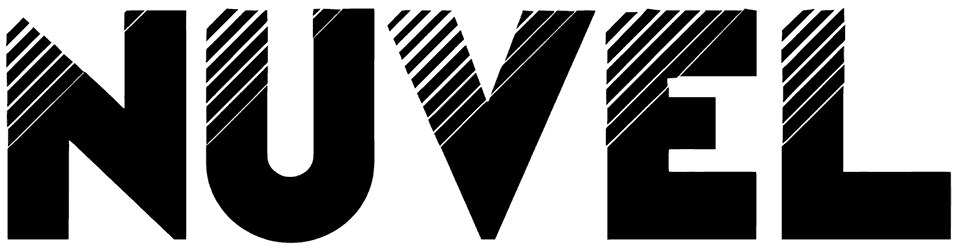
Nuvel Font
Meet Nuvel, a bulky and neat font that can harmonize with any theme. This sans serif font comes up with two series of uppercase to bring you a variety of choices to make your typography look pleasing to the eye.
Although this poster font doesn’t contain lowercase letters, sure thing, it leaves no stone unturned in highlighting your graphics; posters, titling, banner ads, etc. Go over our majesty’s website and hit many stunning sans serif fonts.
Nuvel Font is a Modern Sans-serif typeface. It’s a solid and shopisticated display font, created to emphasys big headline, title, single character and also good for short description paragraph.